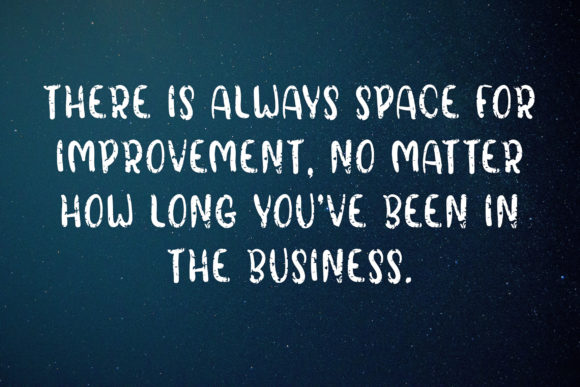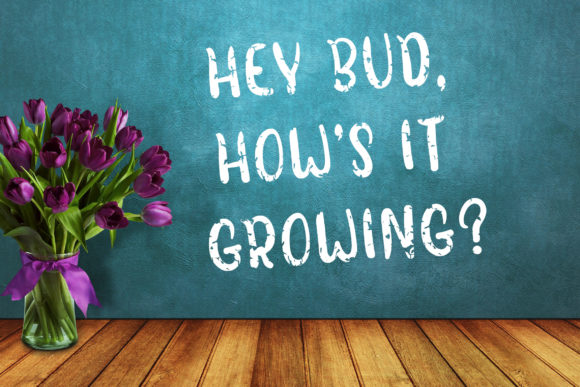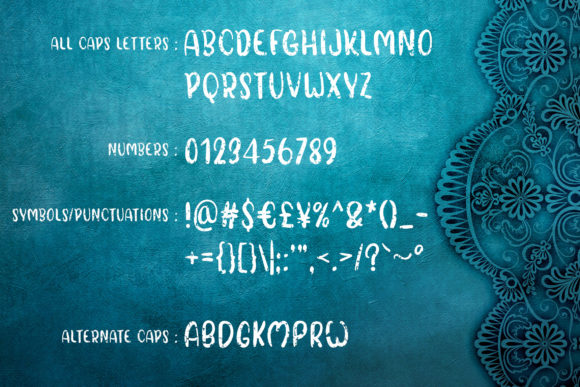
HomeScript FontsBroken Space Font Script Fonts Broken Space Font FacebookXPinterestWhatsApp Broken Space Font Poster 2 Broken Space Font Poster 3 Broken Space Font Poster 4 About Broken Space Font Broken Space is a handmade script full of love charm. It will add a unique, rough flavour to any design project! DOWNLOAD NOW People also explored Mental Health Font Tropical Summer Font Omar Ramadan Monogram Font Blossom Font Cholete Jetto Font Beagles Font Abro Font Christmas Font The Santa Font 316 0 TagsBroken Space Font Previous articleSafytri FontNext articleExpert Font LEAVE A REPLY Cancel reply Comment: Please enter your comment! Name:* Please enter your name here Email:* You have entered an incorrect email address! Please enter your email address here Website: Save my name, email, and website in this browser for the next time I comment. Personal Use Free Hello December Personal Use Free Read more about this font True Love Personal Use Free Read more about this font Rothwell Personal Use Free Read more about this font Shrag Script Personal Use Free Read more about this font BLOG How to Install and Use Fonts on Windows, macOS, and Web Projects How to Install and Use Fonts on Windows, macOS, and Web Projects Fonts are a crucial part of design and branding. Whether you’re designing a... Best Fonts for T-Shirt Design – Top 2025 Picks Using Fonts in Digital Marketing: Tips to Strengthen Your Brand Identity To increase your work productivity, choose the most readable fonts.